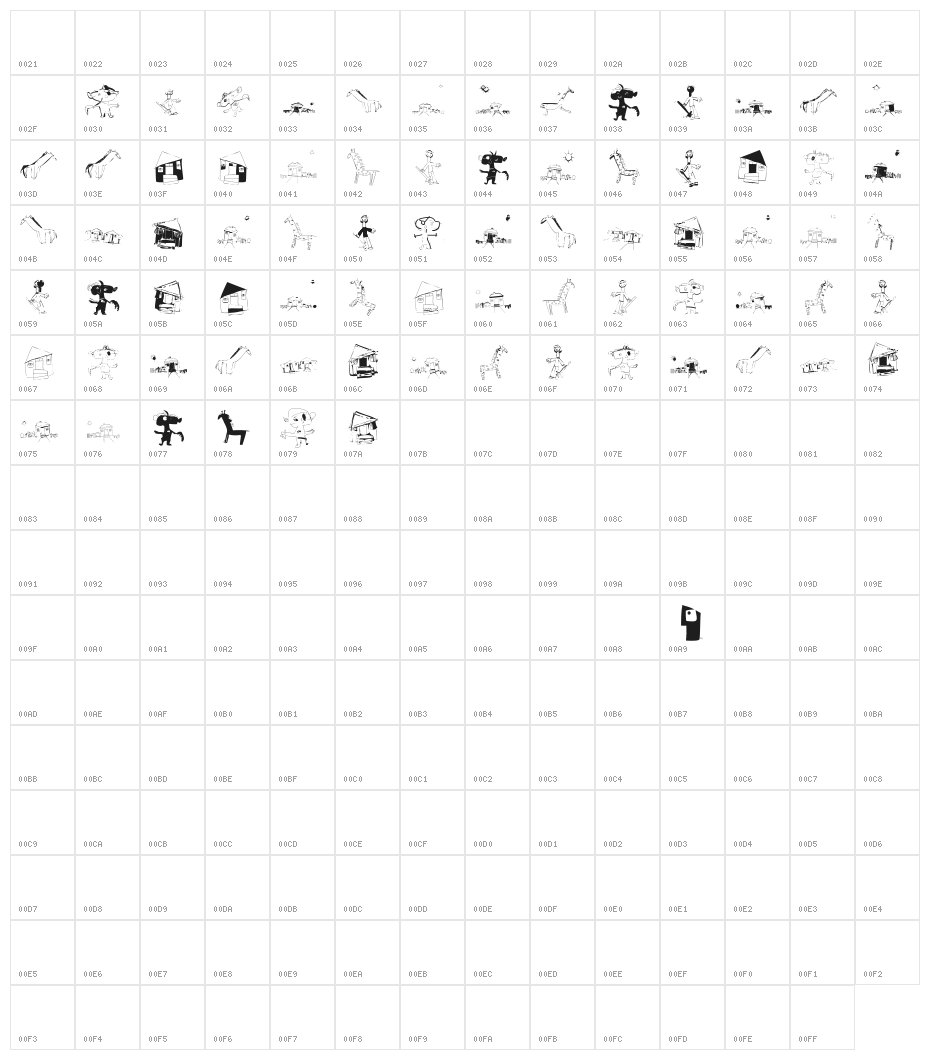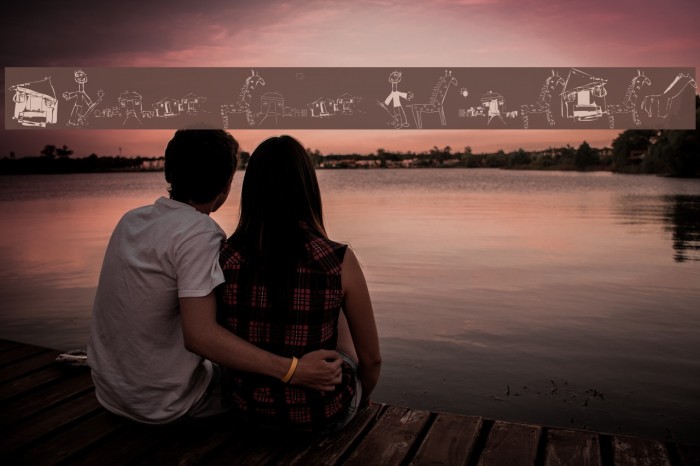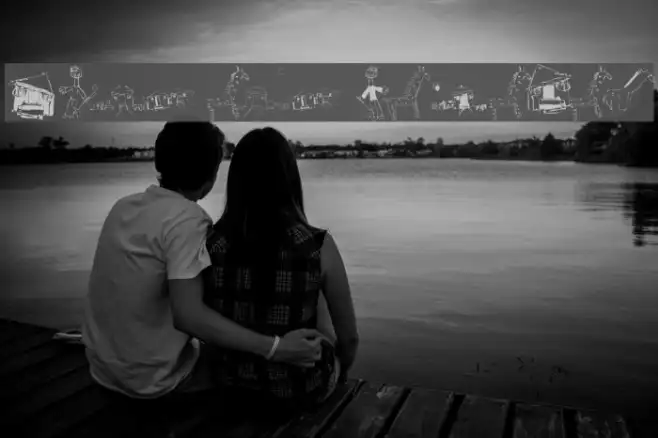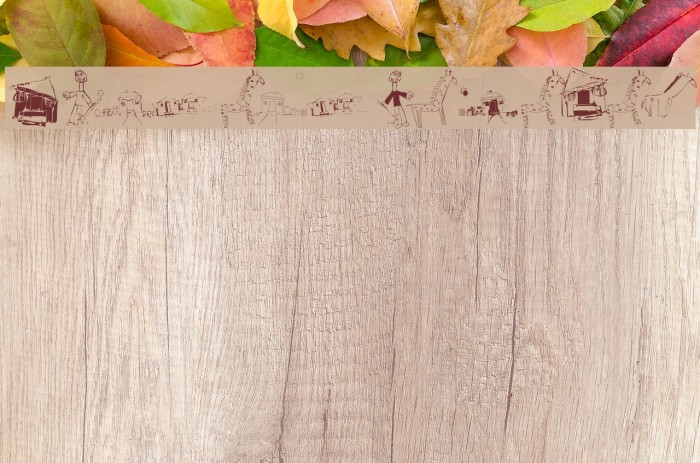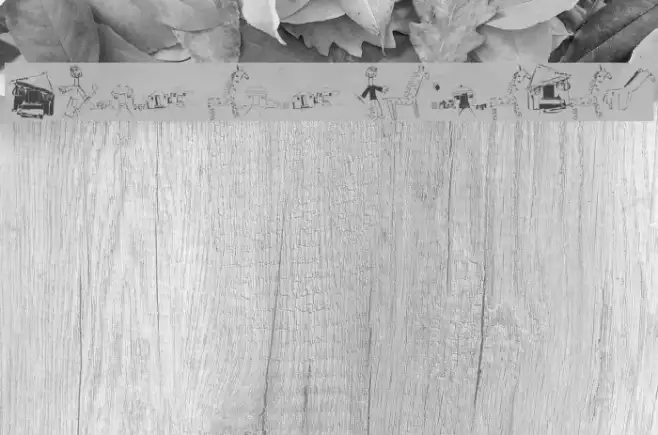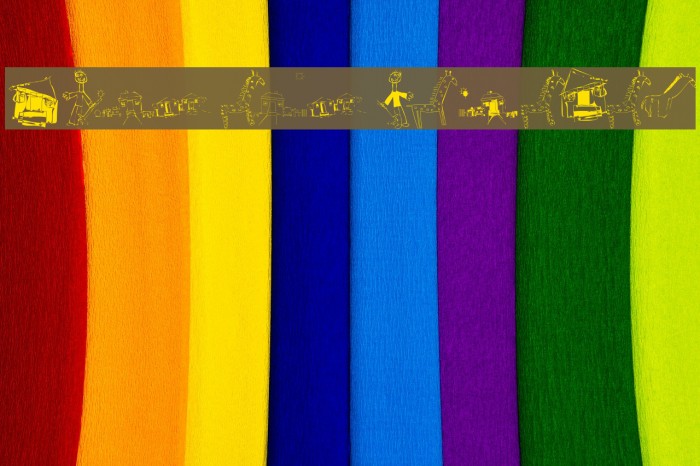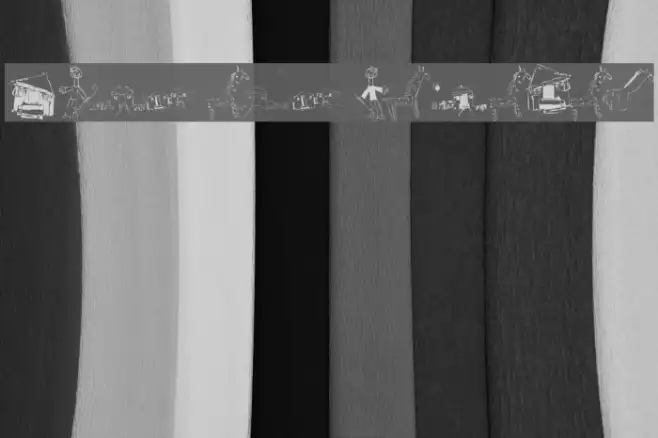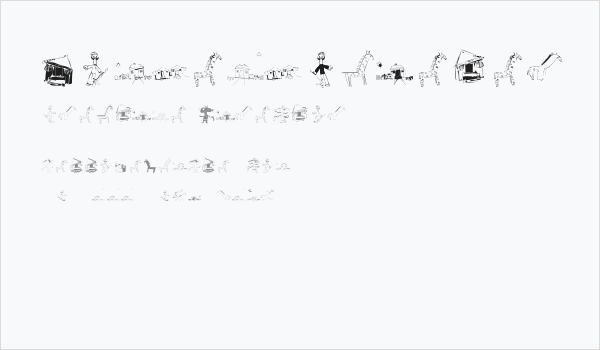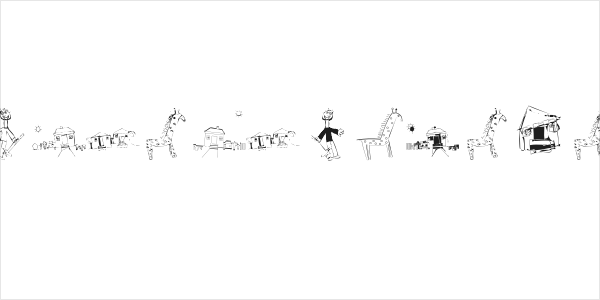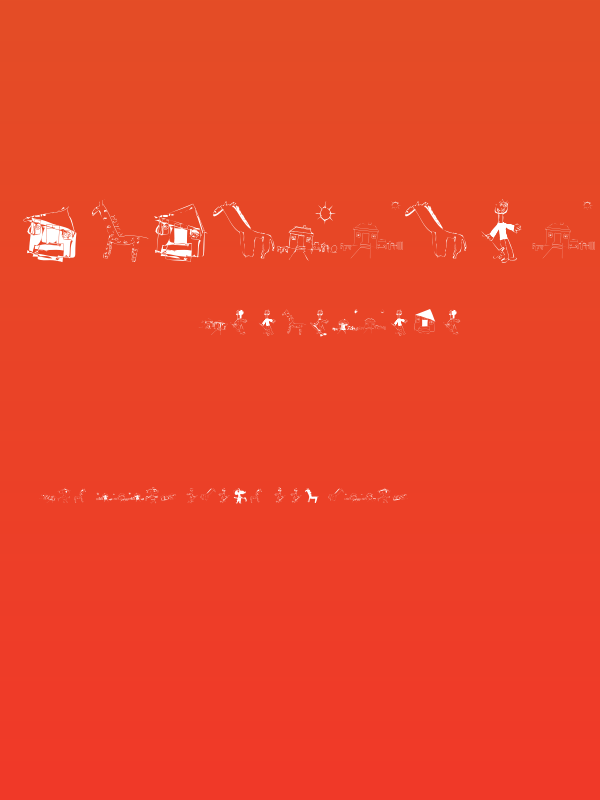
MouseAsPainter Font
MouseAsPainter Description
| Overall Style | Whimsical, Playful, Illustrative |
| Use Case | Display, Posters, ChildrenΓ’β¬β’s content, Creative projects |
| Proposed Projects | ChildrenΓ’β¬β’s books, playful branding, posters, educational materials, creative invitations. |